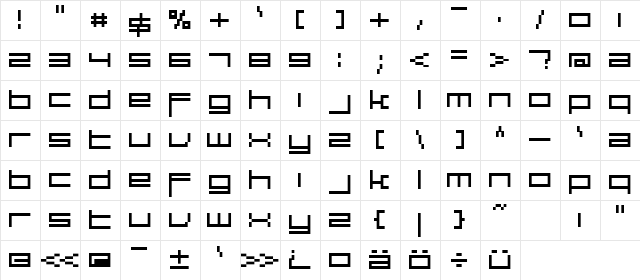
large9 Normal
Design Context for large9 Typeface
large9 offers clean, dependable letterforms without strong stylistic allegiance, making it a practical choice for designers who need flexibility.
Pro Tip: Use large9 in both headline and body roles to test its range before committing to a single application.